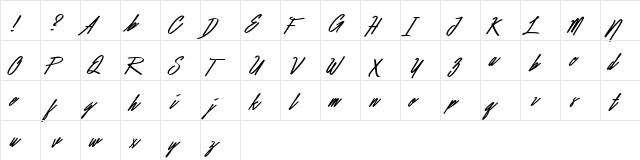
Befitting Demo Regular Font Preview
Befitting Demo Regular
Befitting Demo Regular Font Details
Design Context for Befitting Demo Typeface
Befitting Demo is a composed and adaptable typeface that performs quietly and consistently across a wide range of design contexts.